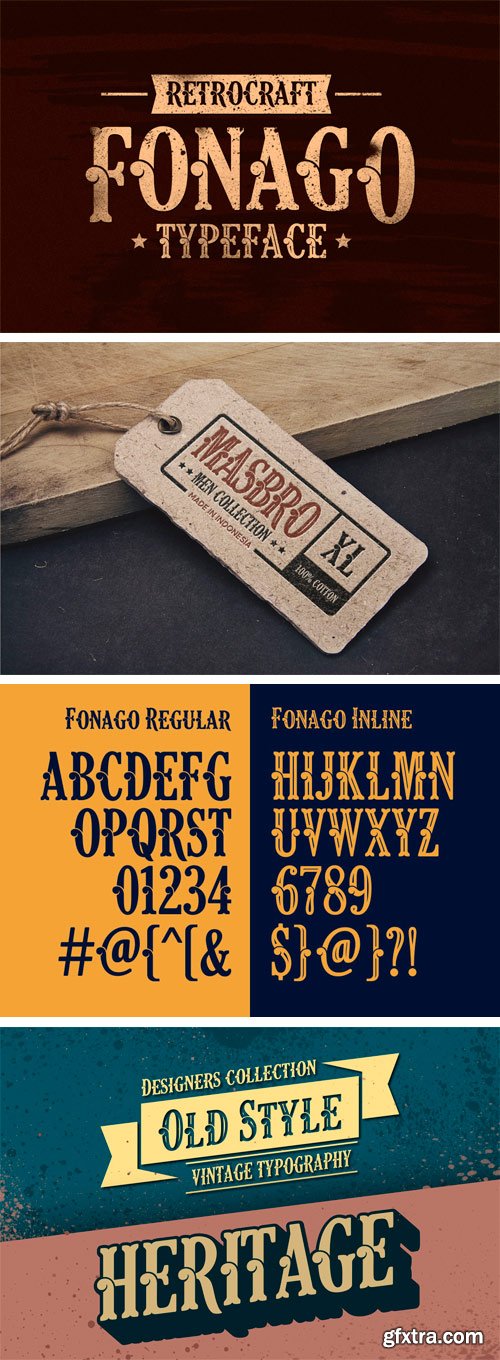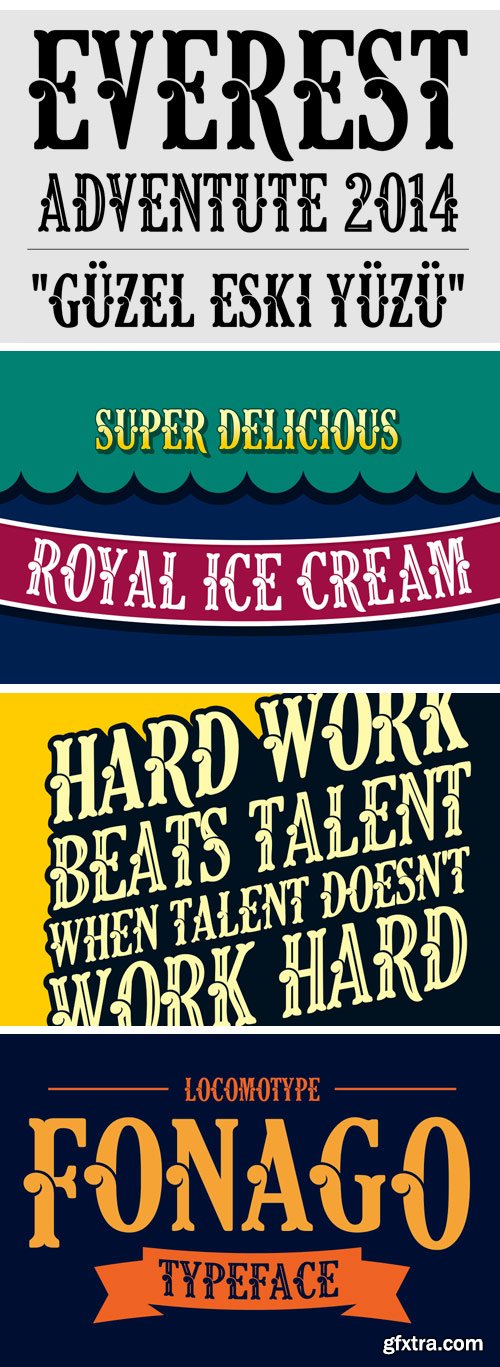
CM - Fonago Typeface 96101
- Fonago is a display serif font with old-fashioned typography styles. This font best for vintage and retro design, poster, t-shirt, headline, label, logo, etc. Fonago comes with 228 glyphs and available in Regular and Inline style. You can mix and match both styles to fit your design. You will get OTF and TTF format in one folder.